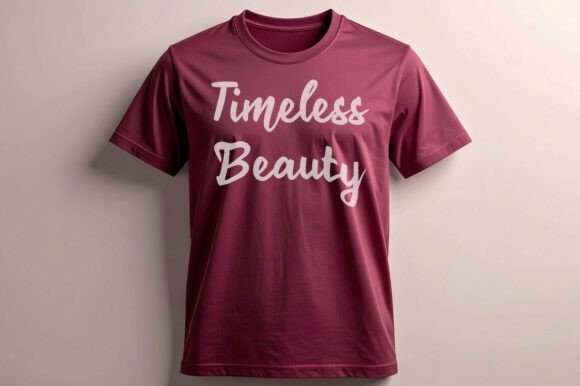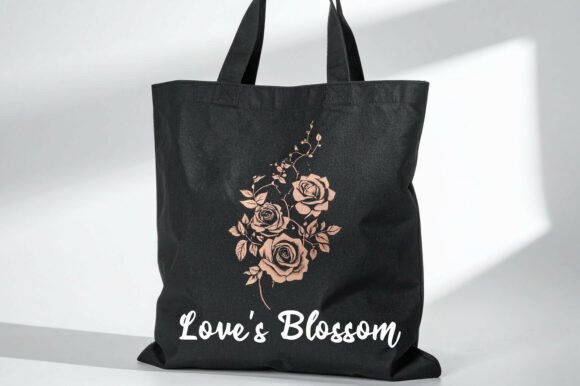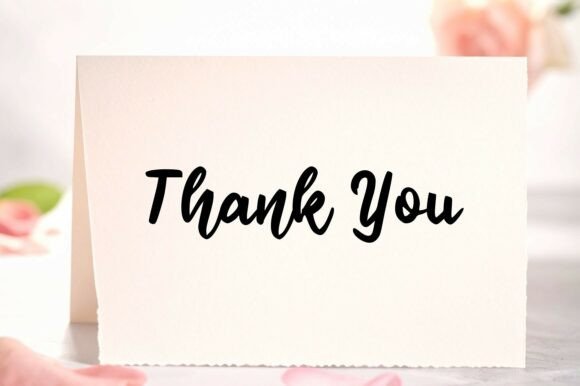
The Perfect Font for a Romantic Gesture
Have you ever found yourself in a creative moment, staring at a blank page, searching for the perfect words to express your feelings? Whether it’s a love letter, a wedding invitation, or a heartfelt message, finding the right font can make all the difference. For designers, choosing a font that conveys elegance and sophistication is crucial, and that’s where the Beautiful Rose Font comes in.
This exquisite script font is designed to evoke the romance and beauty of a blooming rose. Its delicate strokes and refined curves make it perfect for designs that require a touch of classic charm. The Beautiful Rose Font is ideal for wedding stationery, anniversary cards, luxury branding, and feminine product packaging, adding a touch of timeless beauty to any creative project. With this font, you can deliver your message with exquisite style and make a lasting impression on your audience.
Beautiful Rose Font Key Features
- Unique Characteristics: Features a delicate, hand-drawn design with intricate details and subtle texture, giving it a romantic and elegant feel.
Designer Review: Beautiful Rose Font
The Beautiful Rose Font is a beautiful, elegant script font that can add a touch of sophistication to any design. ✨ Its flowing curves and delicate lines make it perfect for creating a romantic and whimsical atmosphere.
Here are some of the things that I love about this font:
- ✨ Elegant and refined design that is perfect for weddings, anniversaries, and other romantic occasions.
- ✨ Versatile and can be used for a variety of design projects, from invitations to packaging.
- ✨ The font is highly customizable, allowing designers to adjust the size, color, and style to fit their needs.
- ⚠️ The font may not be suitable for bold or loud designs, as it can get lost in the background.
- ⚠️ Some users may find the font to be too ornate or distracting, especially in large blocks of text.
- ⚠️ The font may not be compatible with all operating systems or devices, which can cause issues with font rendering.
Overall, I think the Beautiful Rose Font is a beautiful and elegant addition to any design project. While it may have some limitations, it is a great choice for designers looking to create a romantic and whimsical atmosphere.
The Beautiful Rose Font is ideal for:
- Wedding invitations and decorations
- Floral-themed designs and graphics
- Romantic and feminine branding
- Special occasion and event invitations